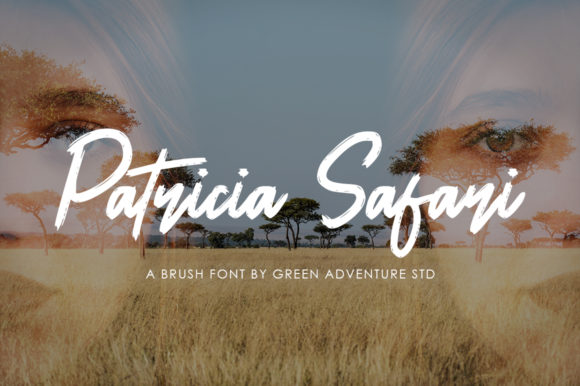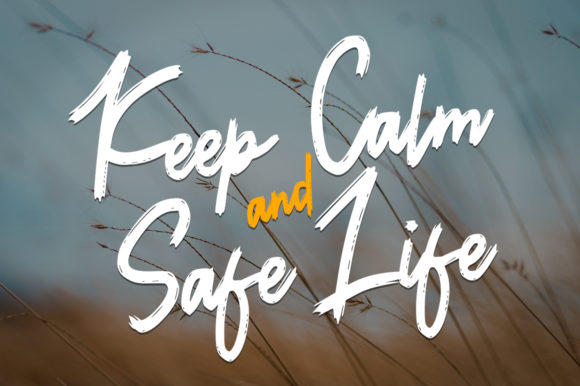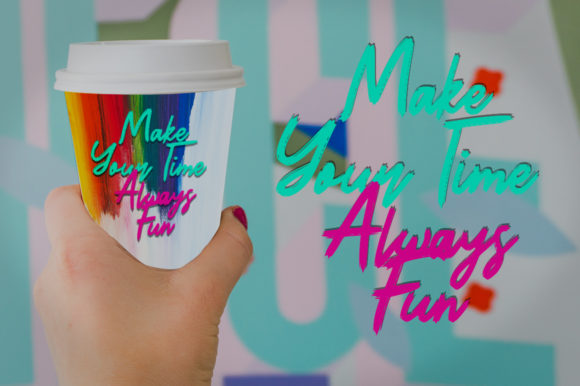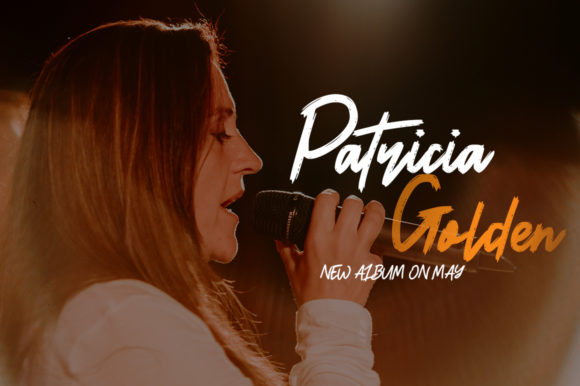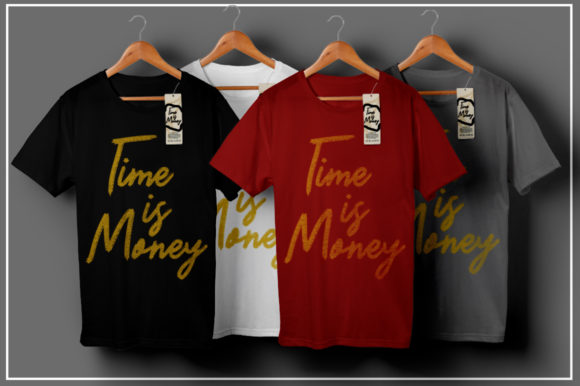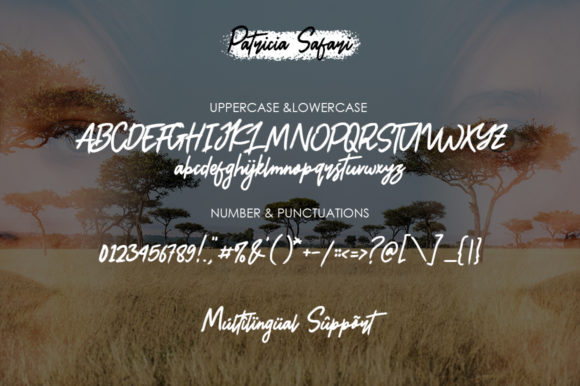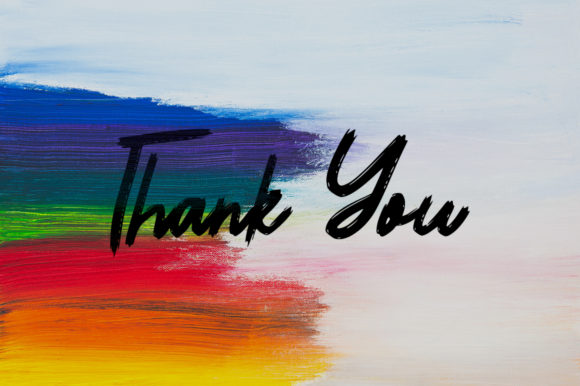
Patricia Safari Font
About Patricia Safari Font
Patricia Safari is a casual, fun handwritten font, created by using a brush pen. This font is the perfect fit for all of your logos, branding, social media, and crafty DIY projects.